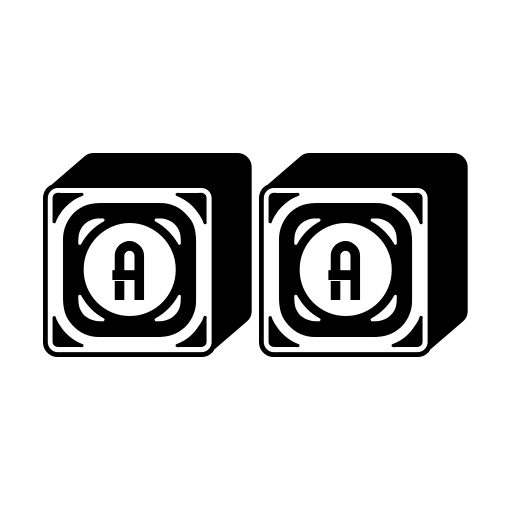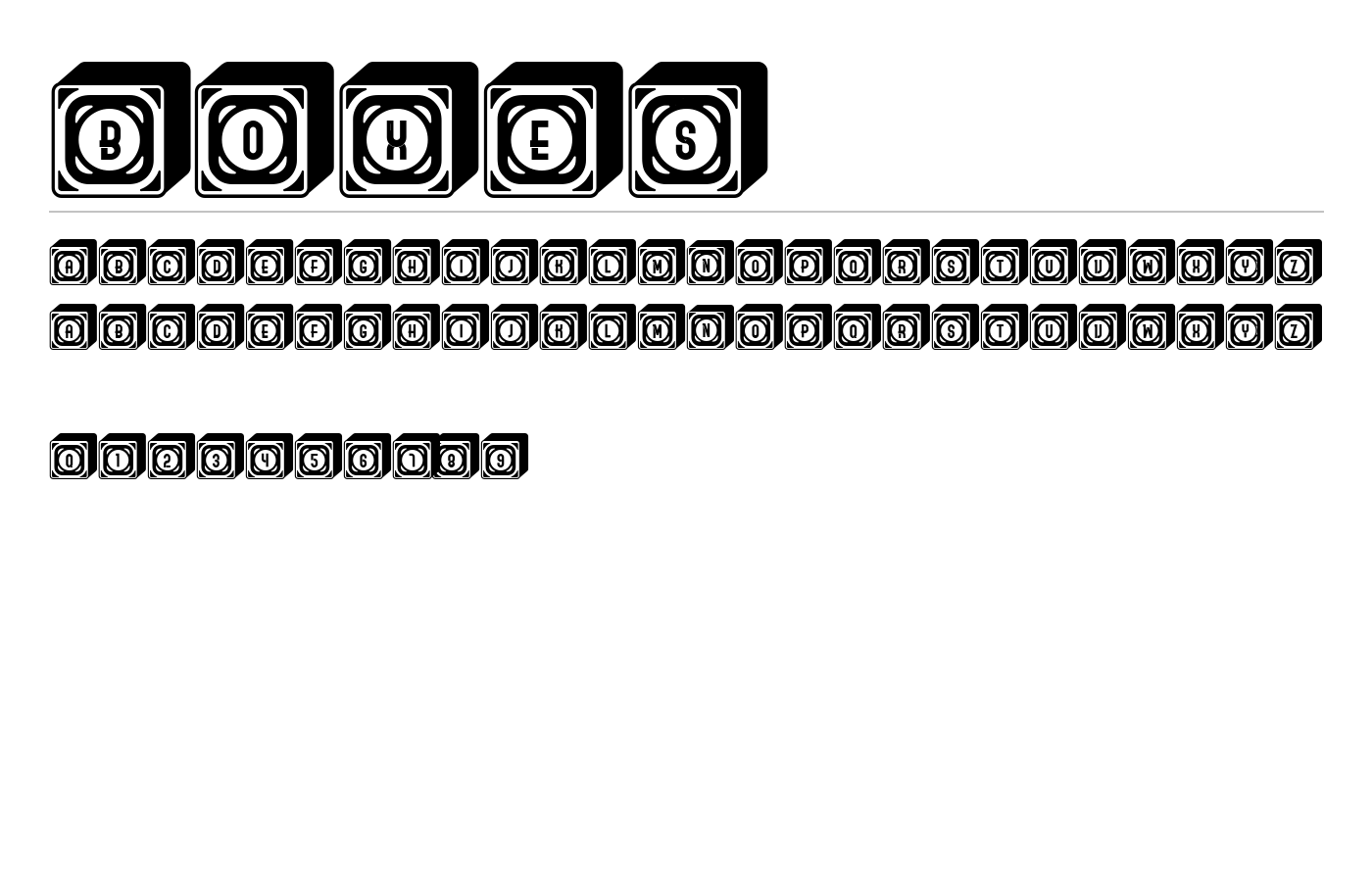
Boxes Font is a playful and bold display typeface characterized by its unique design of each letter and number encapsulated within a 3D-rendered square box. Its heavy weight and stylized, blocky form give it a fun, vintage machine-like aesthetic, making it perfect for eye-catching headlines, logos, or creative projects needing a touch of quirky personality and retro charm. This font works best in display contexts where its distinct boxed letters can stand out and add visual interest.
Boxes Font
About Boxes Font